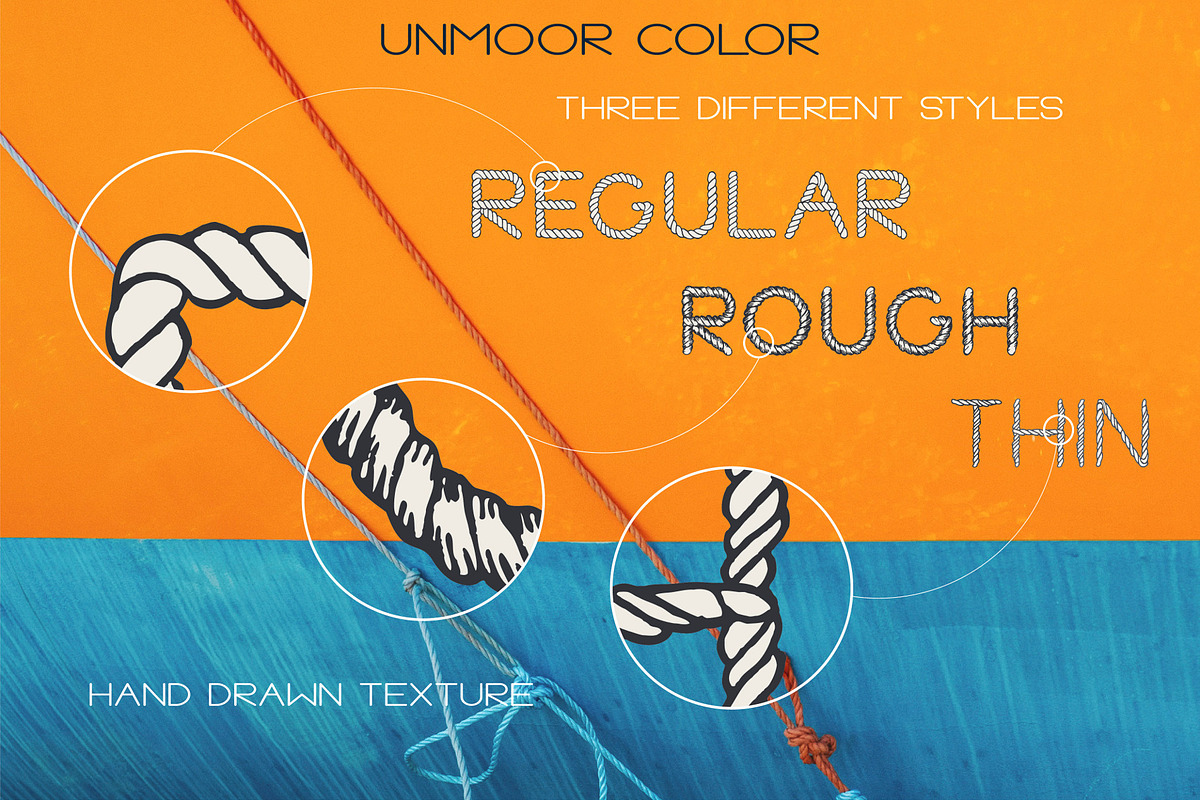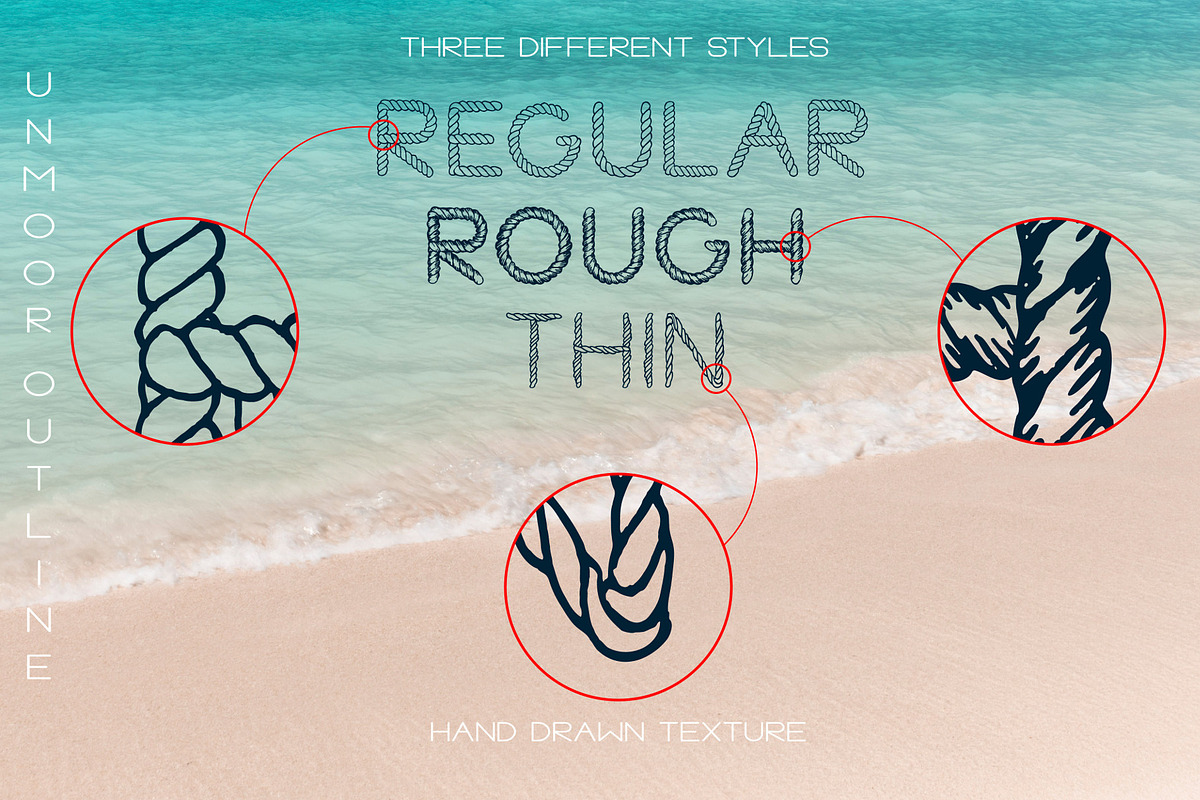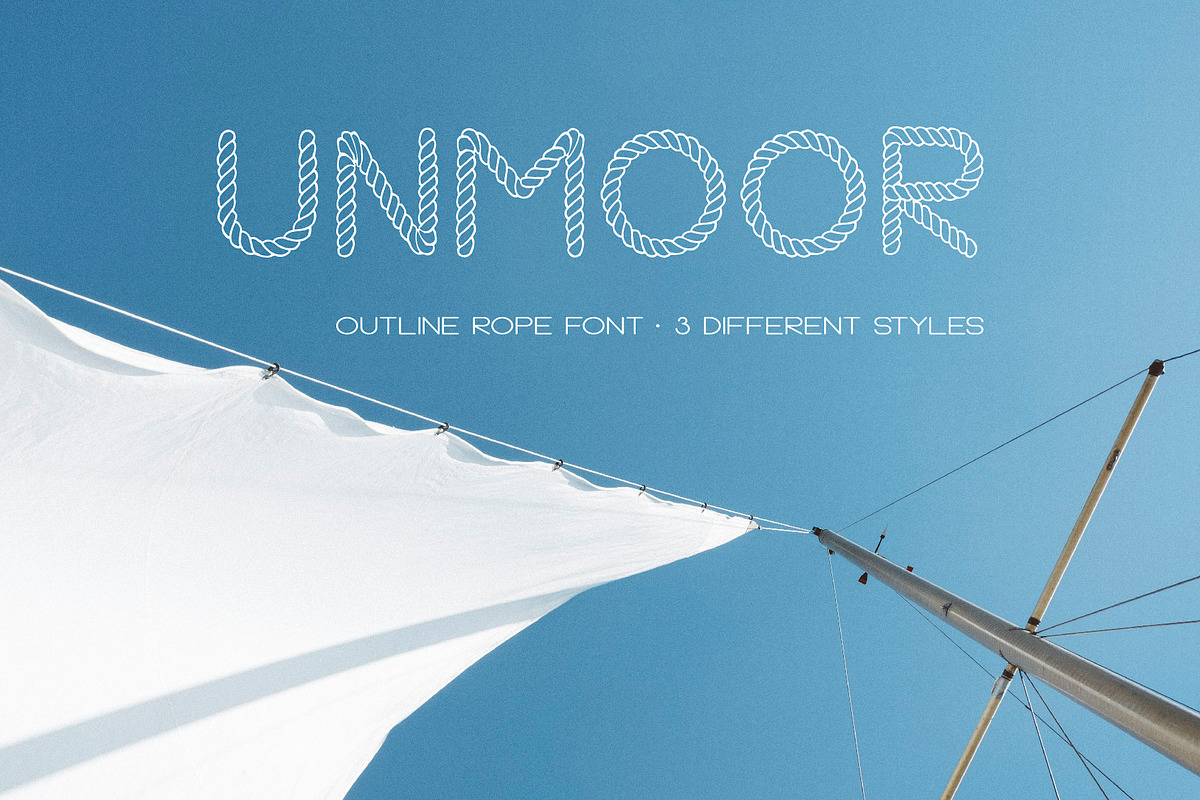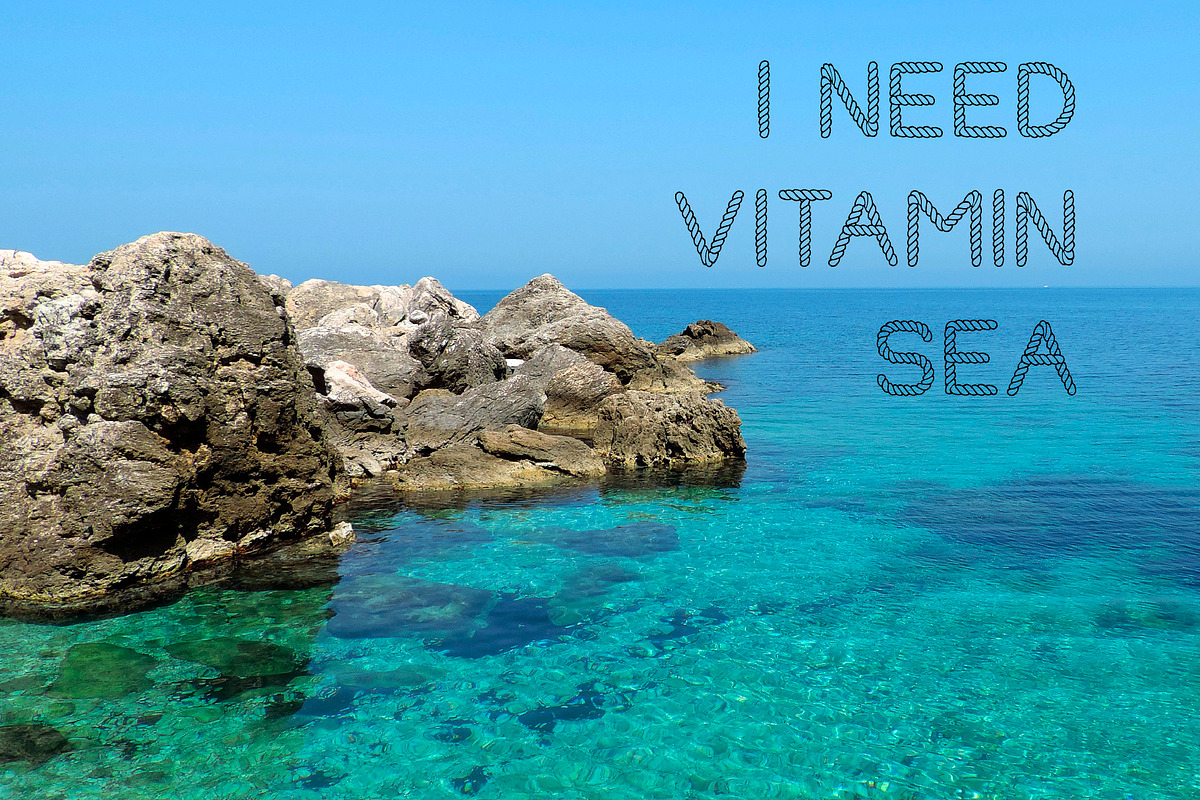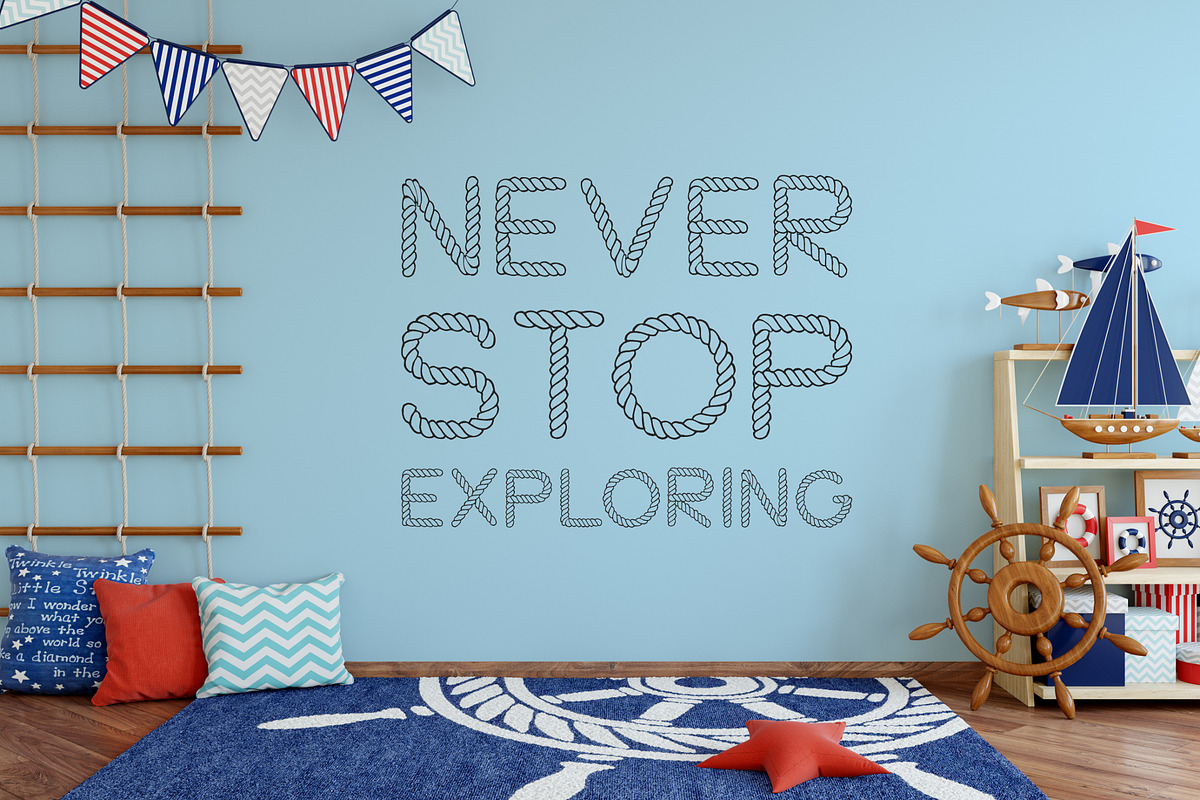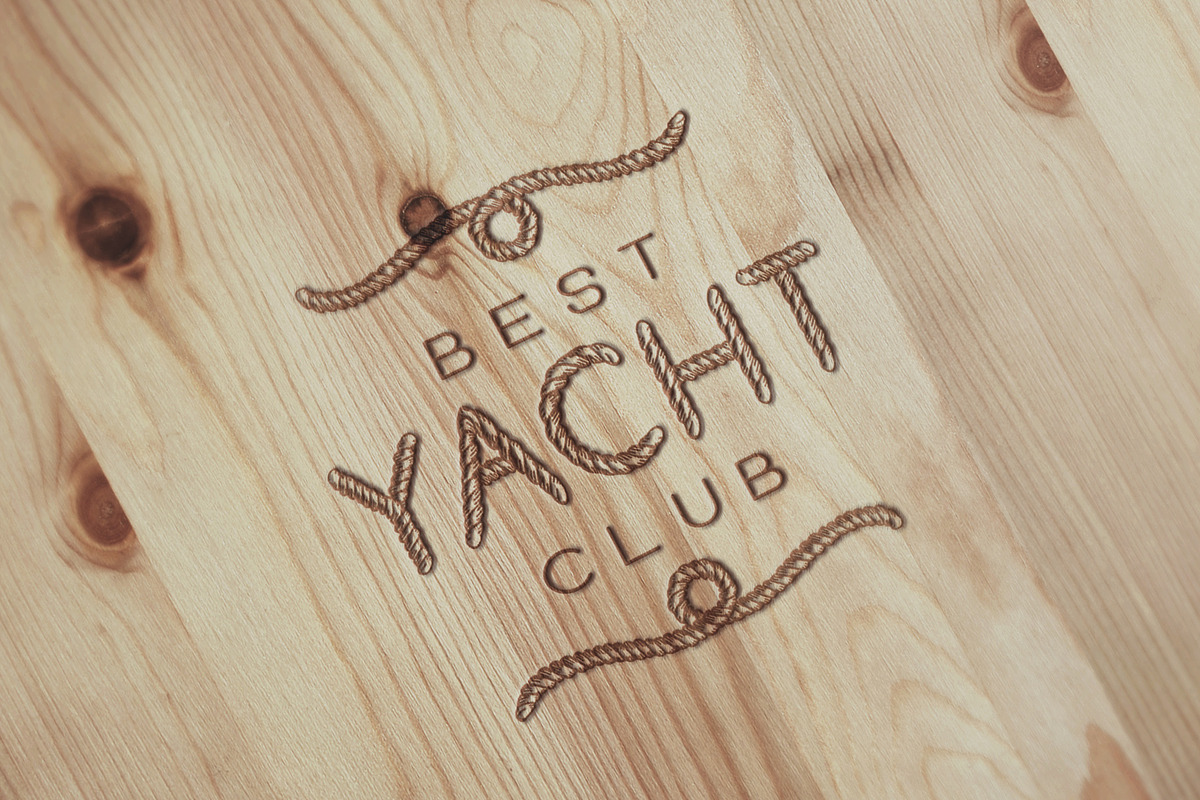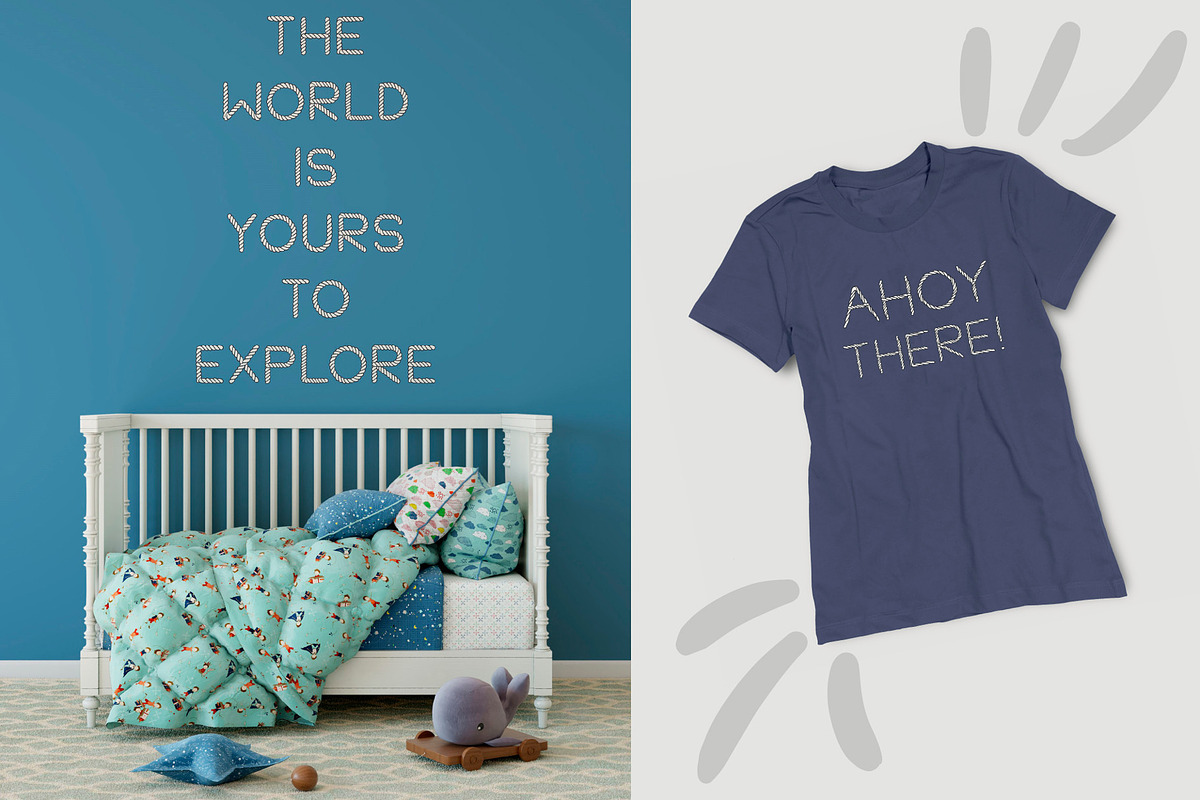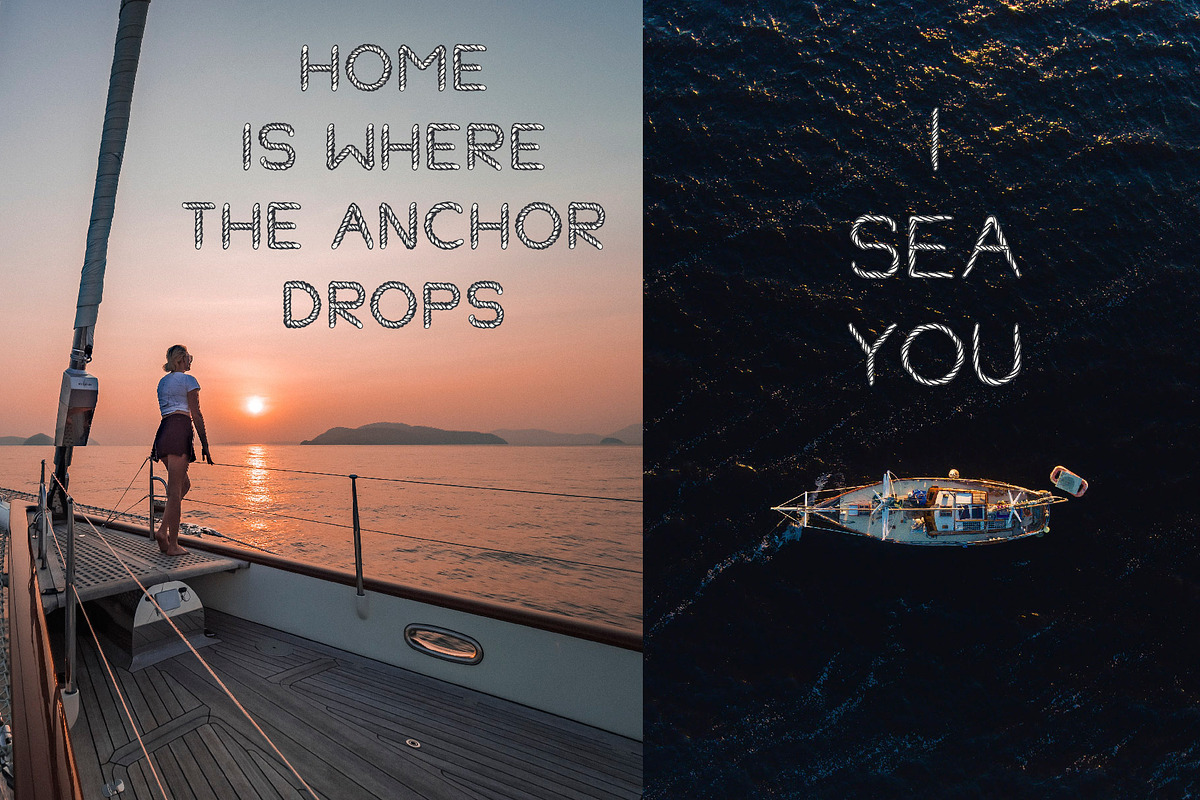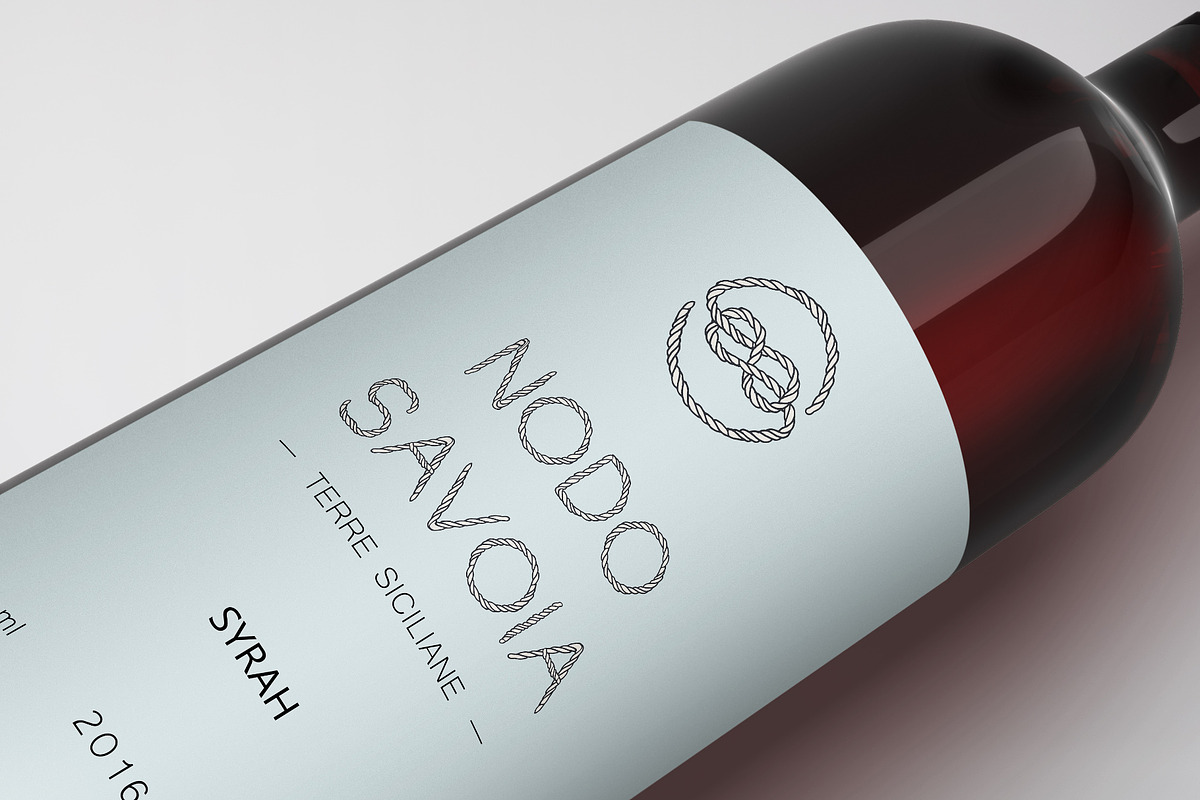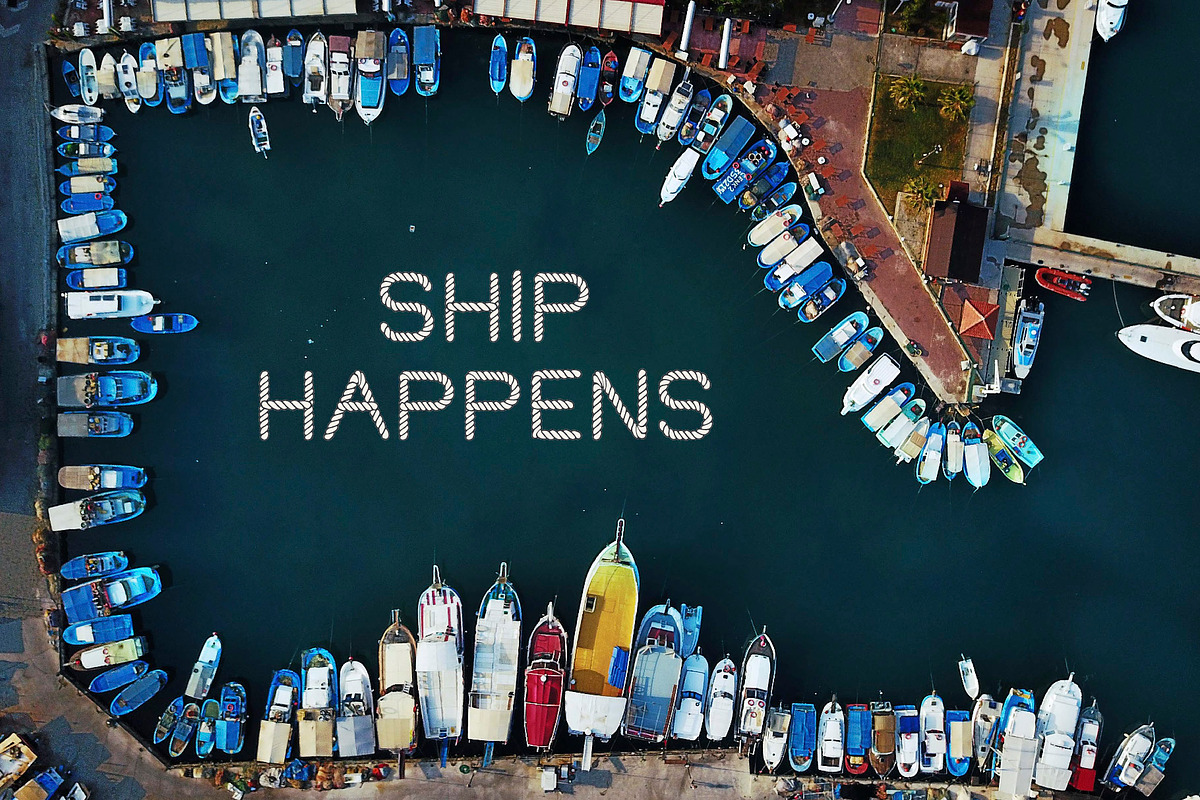
Unmoor - Color and Outline Rope Font
Ahoy there! Unmoor Rope Font is here!
If you looking for rope letters to add to your nautical design, it is possible that you have found the ideal solution!
Unmoor - Color and Outline Rope Font is a family of 2 fonts each with 3 different styles.
1. Unmoor Color Font
it is OpenType SVG font that you can directly type as color rope letters. The color of rope letters is light beige with dark grey stroke. Color of letters can't be changed.
You can try 3 different styles - Regular, Rough and Thin - to find the best suitable texture
Unmoor Color Features:
- Uppercase letters
2. Unmoor Outline Font
it is a standard OTF Font where you find only stroke without fill. You can change the color of Outline Rope Font as any other classic typeface.
You can try 3 different styles - Regular, Rough and Thin - to find the best suitable texture
Unmoor Outline Features:
- Uppercase letters